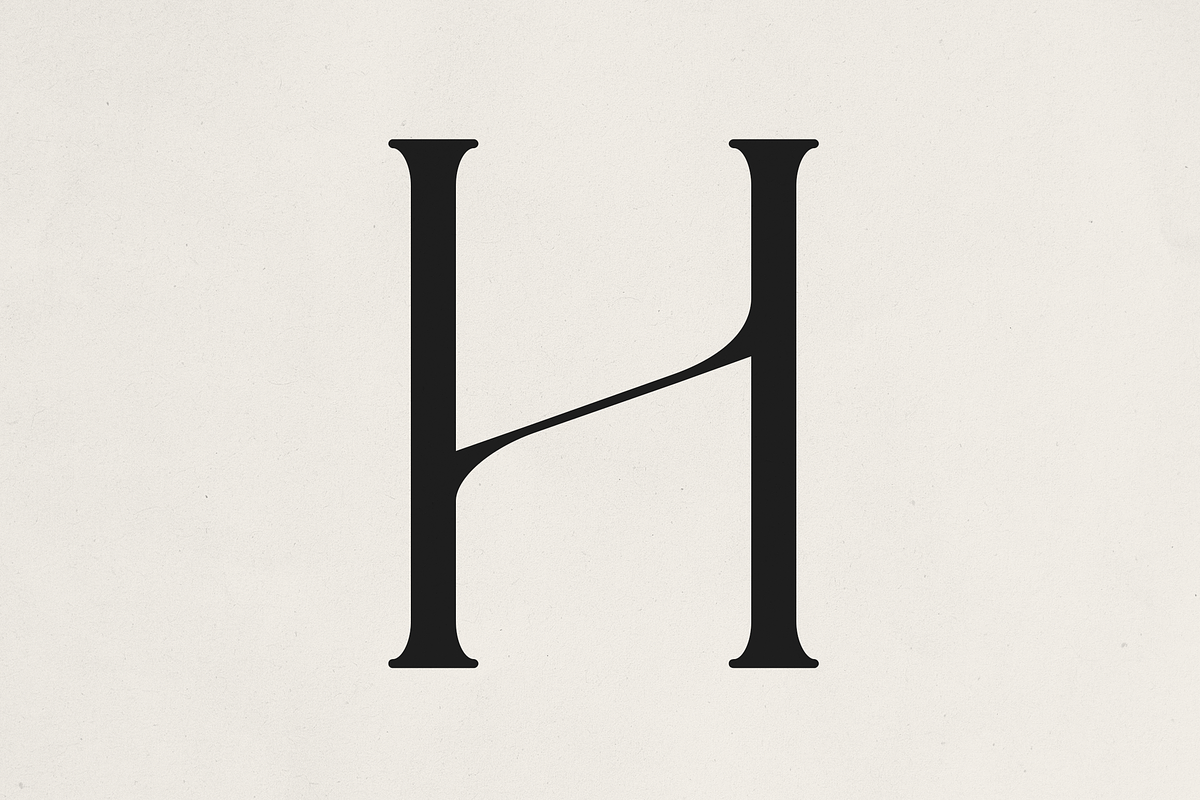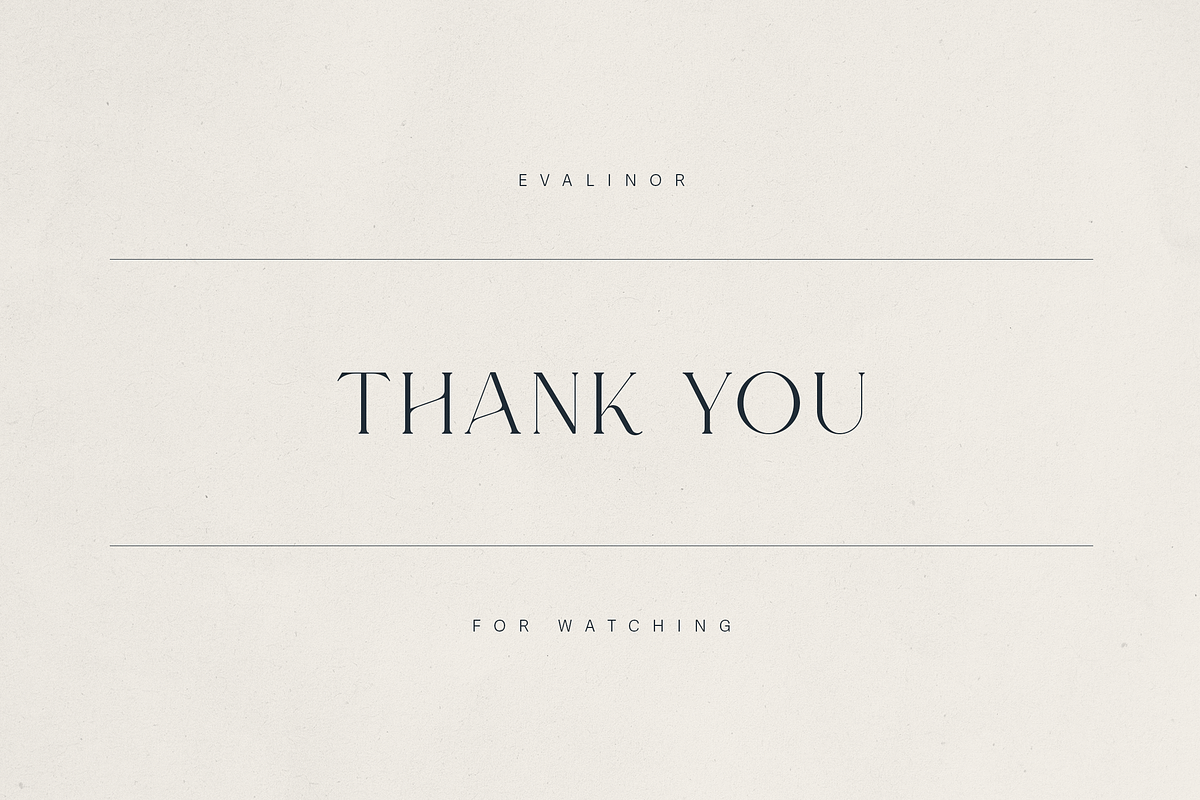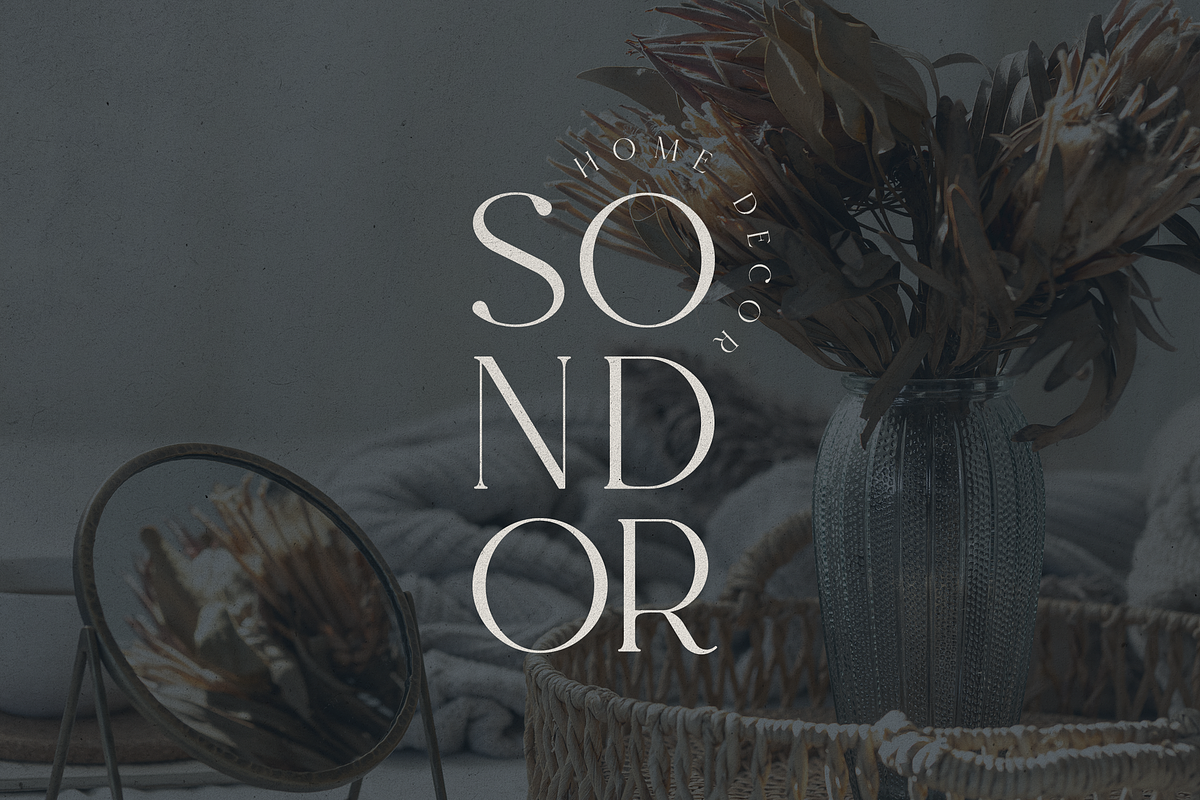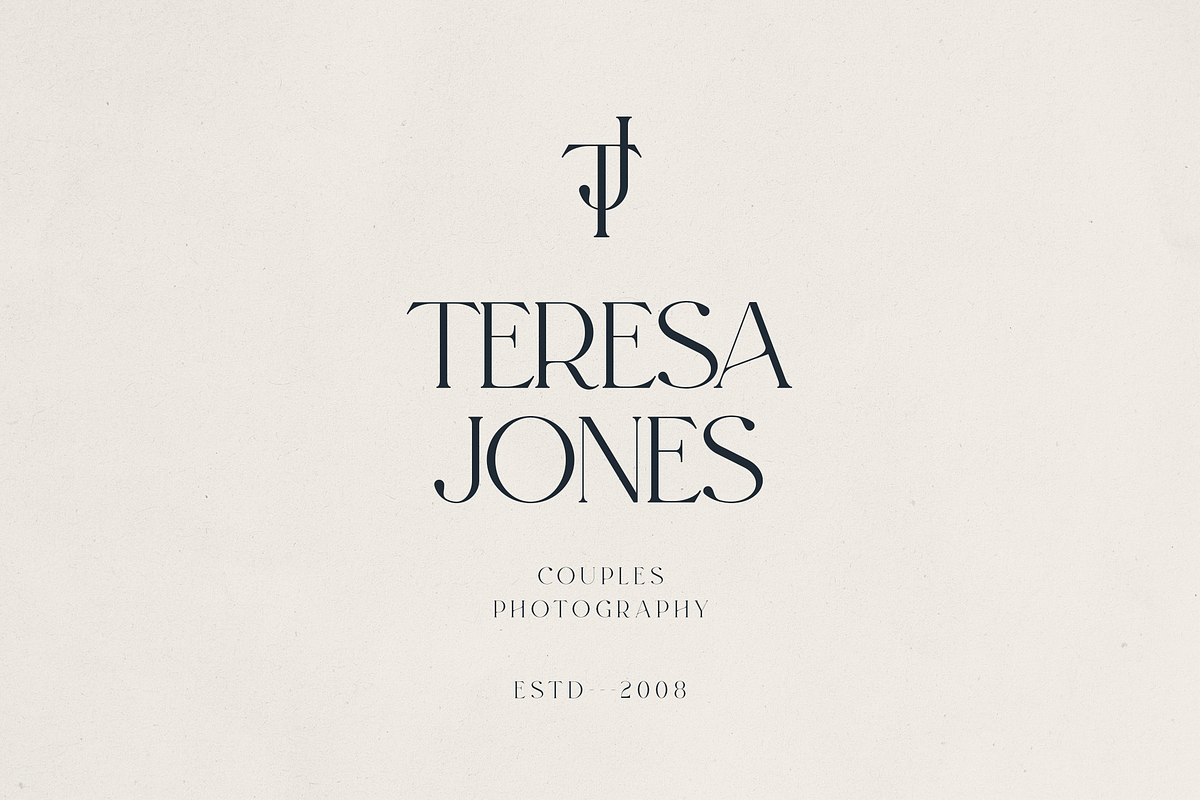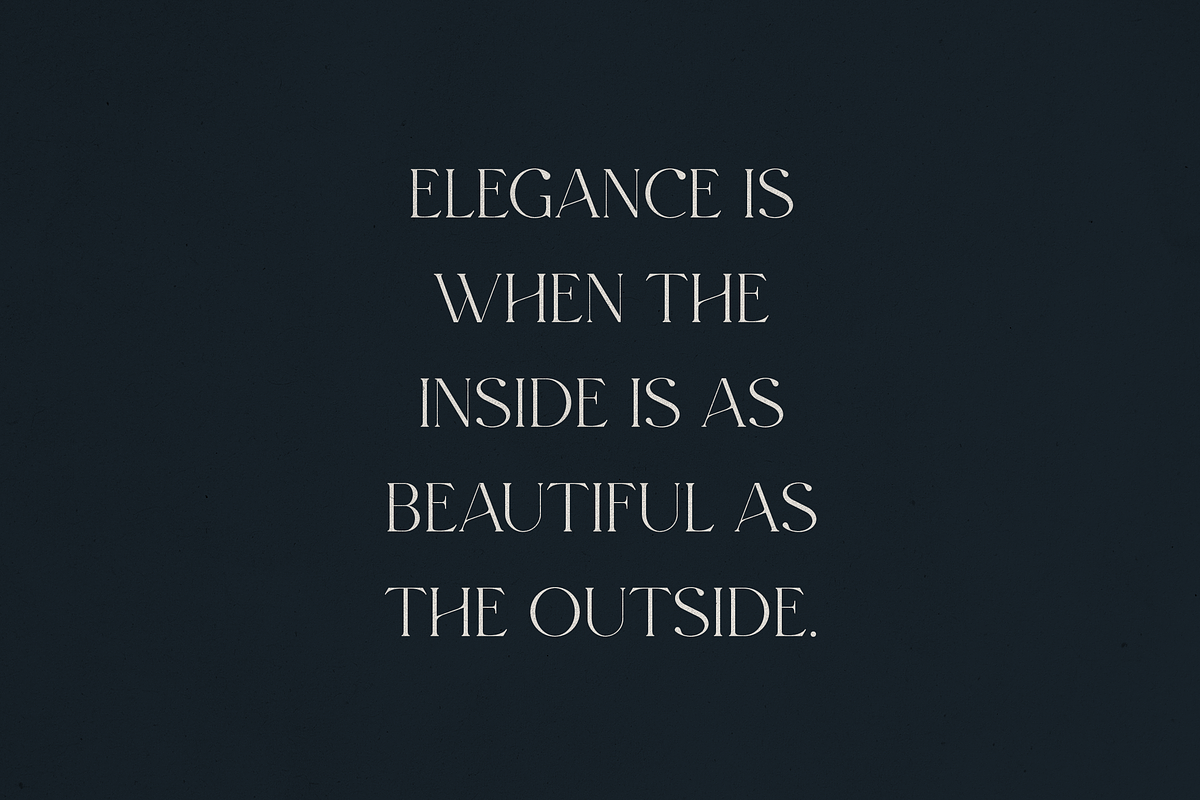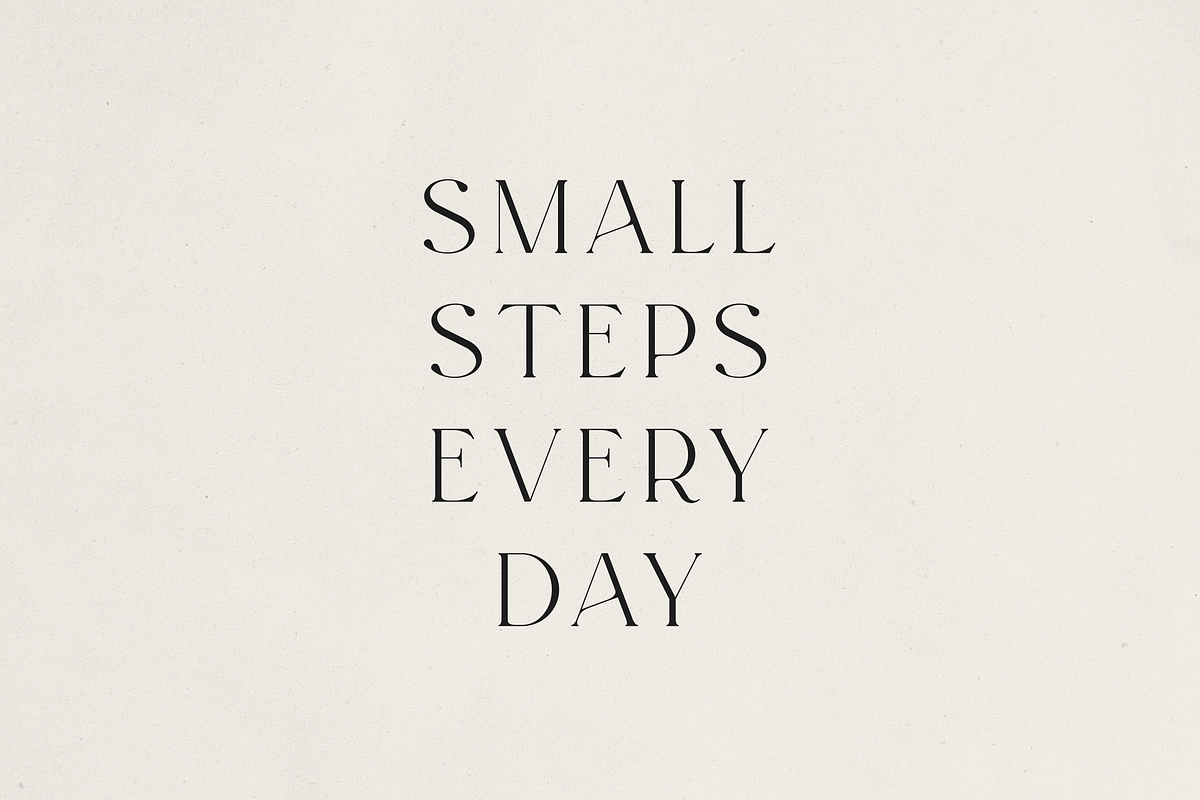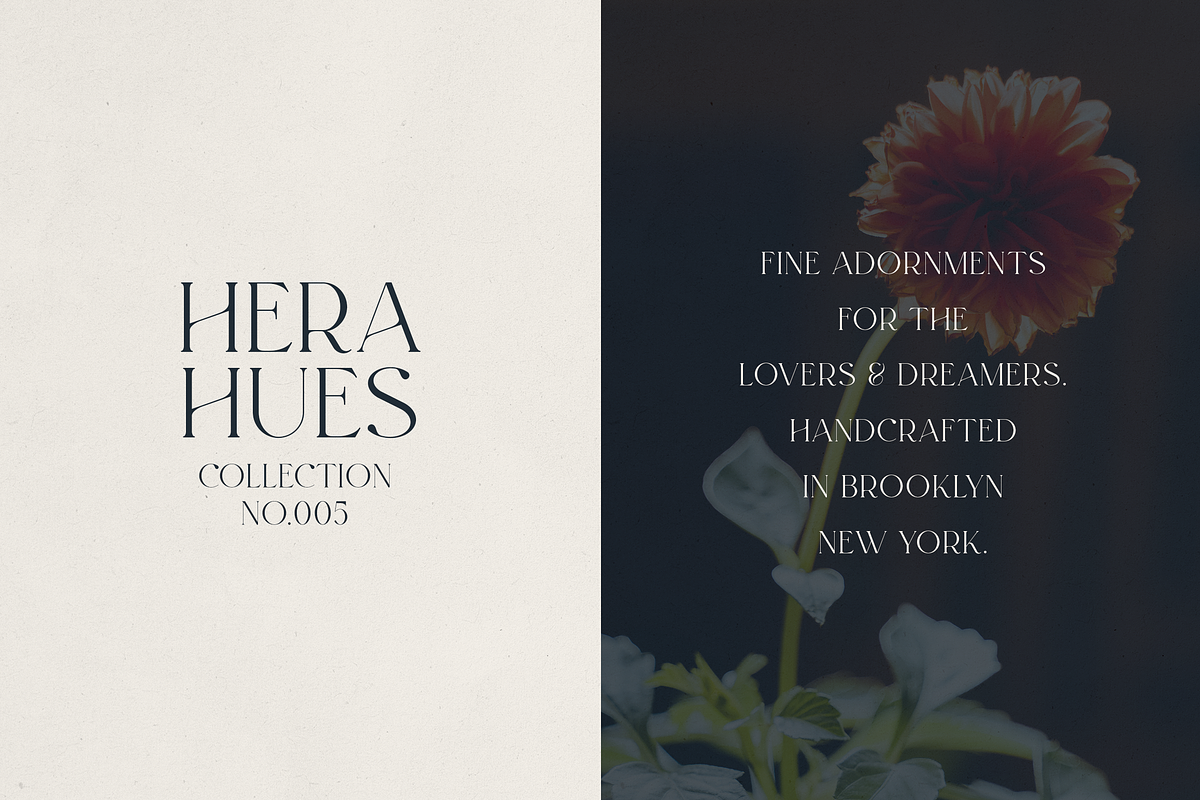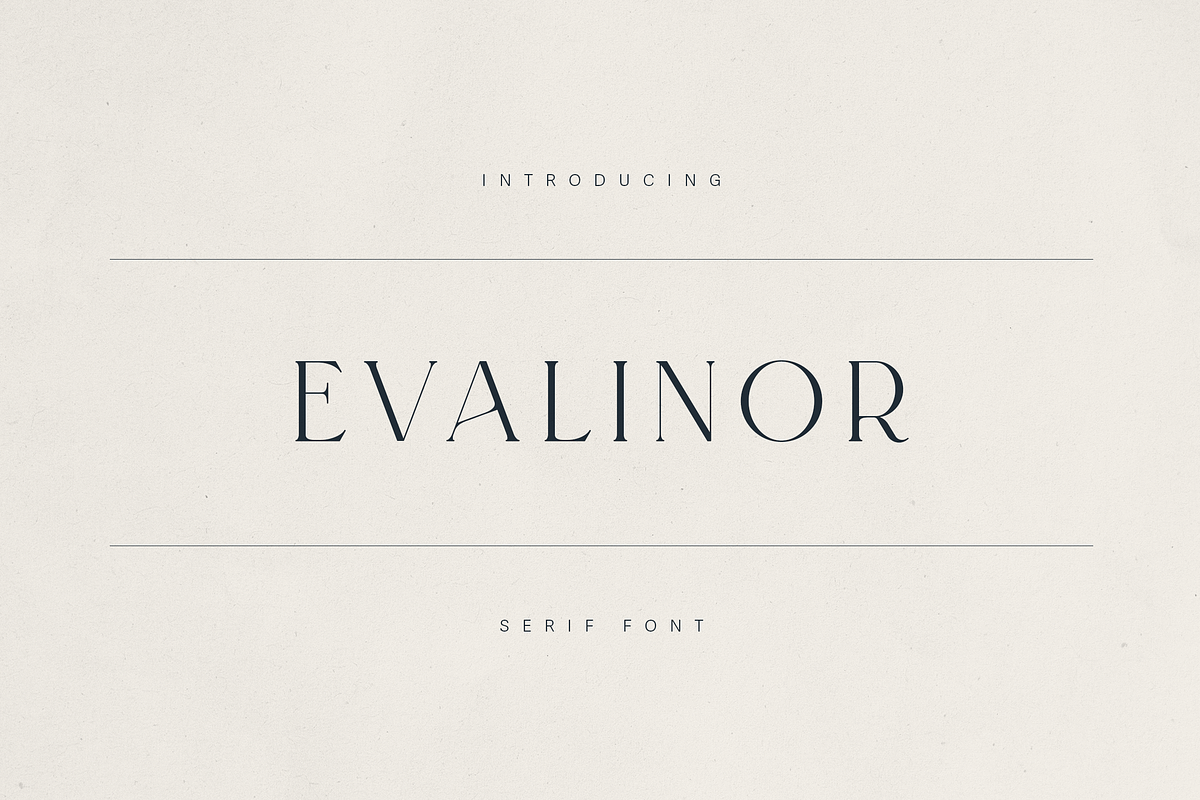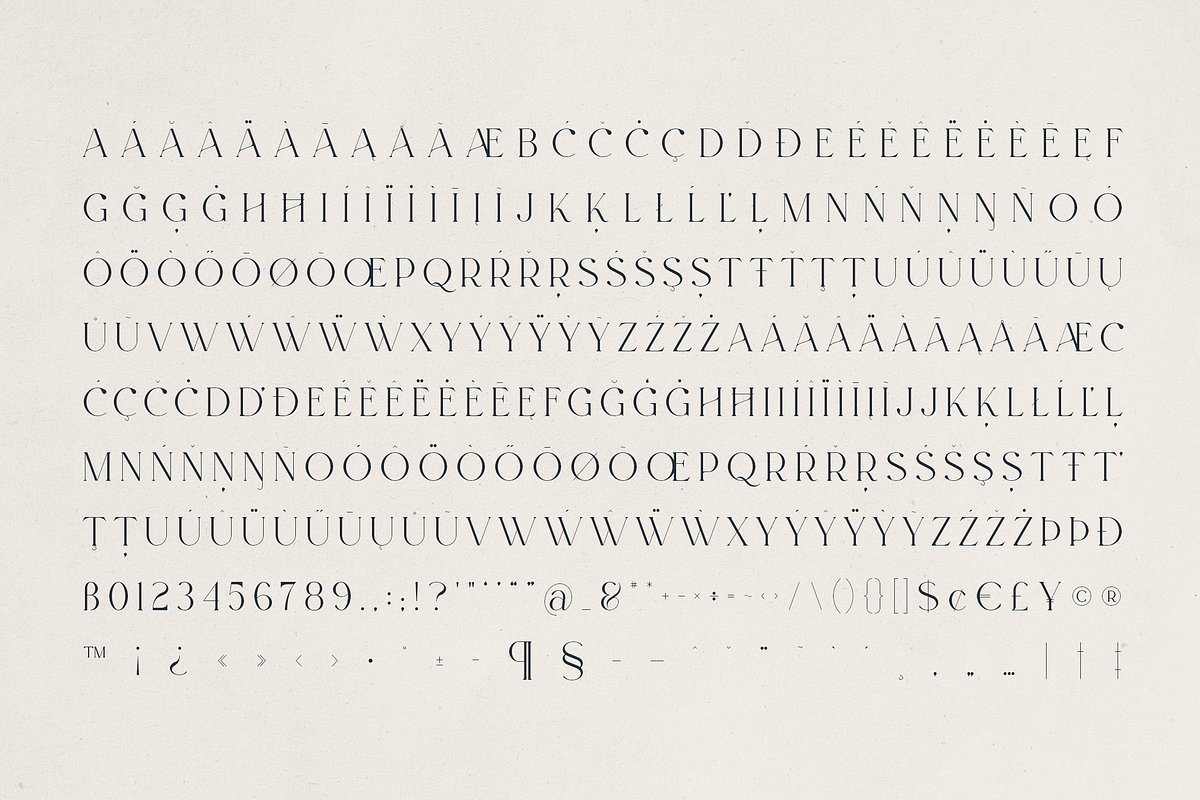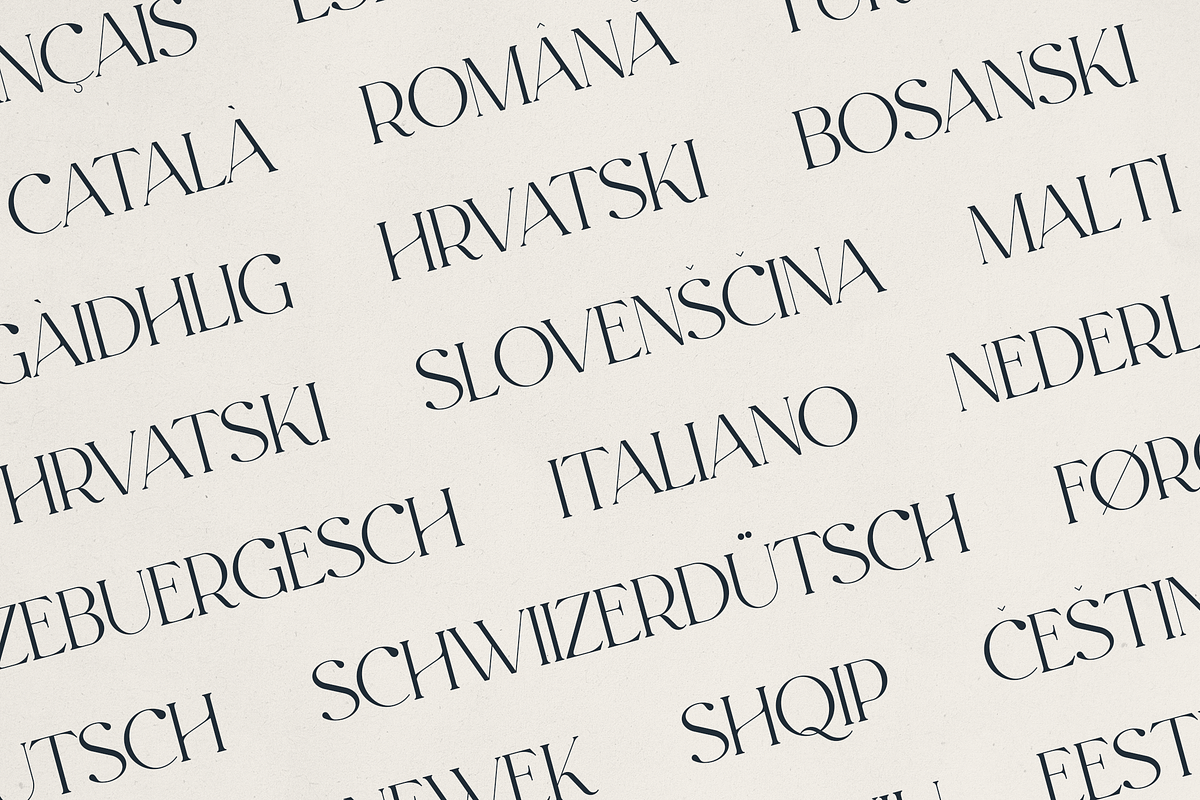
Evalinor – A Modern Serif Font
Evalinor – A Modern Serif with Artistic Elegance
Evalinor is not just a font – it’s a visual statement. Designed with delicate high-contrast strokes, fine serifs, and subtle curves, Evalinor brings a handcrafted yet modern touch to any project. Its artistic flair, seen in unique letterforms like the flowing “A” and graceful “H,” gives every word a sense of character and sophistication.
Perfect for brands and creators who want to express elegance, Evalinor works beautifully for luxury logos, wedding invitations, editorial layouts, packaging, home décor branding, photography studios, and lifestyle designs. It’s a typeface that feels refined, romantic, and creative – ideal for those who want their text to stand out with timeless charm.
Evalinor is versatile enough to handle both headlines and body text.
Why Evalinor is special:
- Unique high-contrast serif design for a luxurious look.
- Perfect for fashion, lifestyle, and artisan brands.
- Full character set with multilingual support.
- Elegant yet modern – fits both digital and print projects.